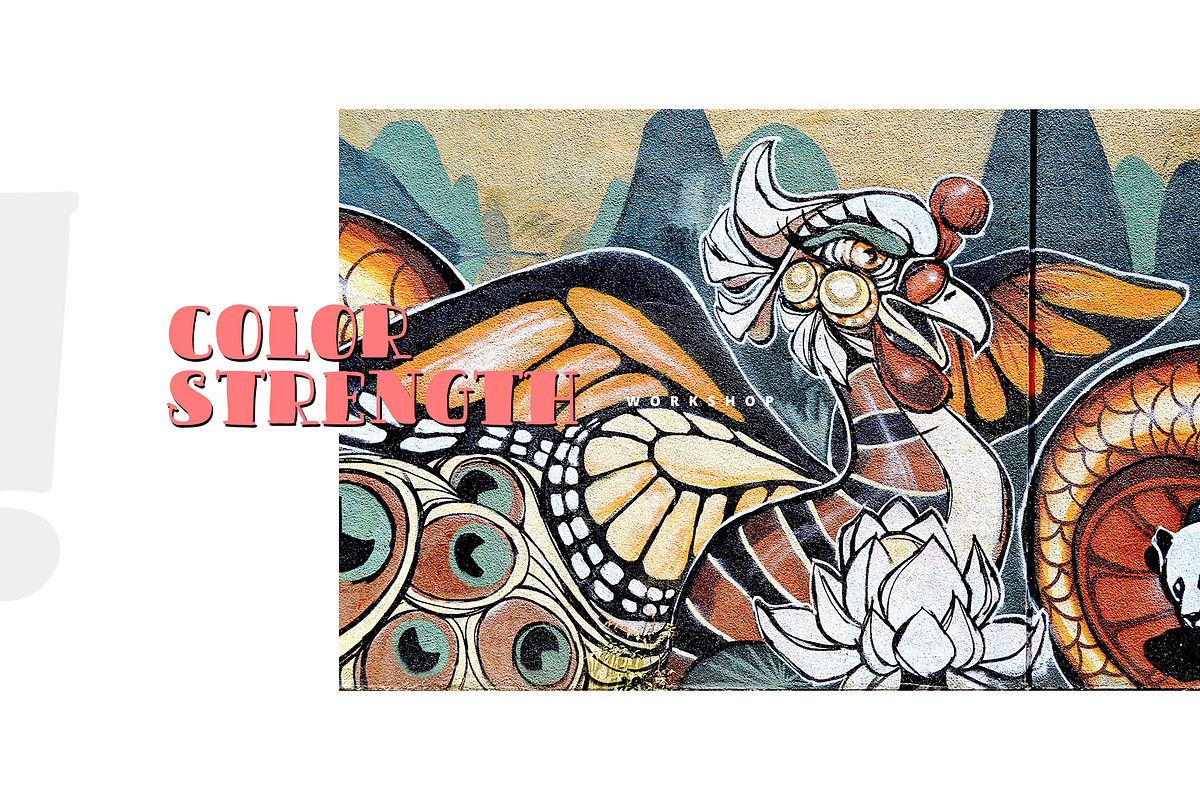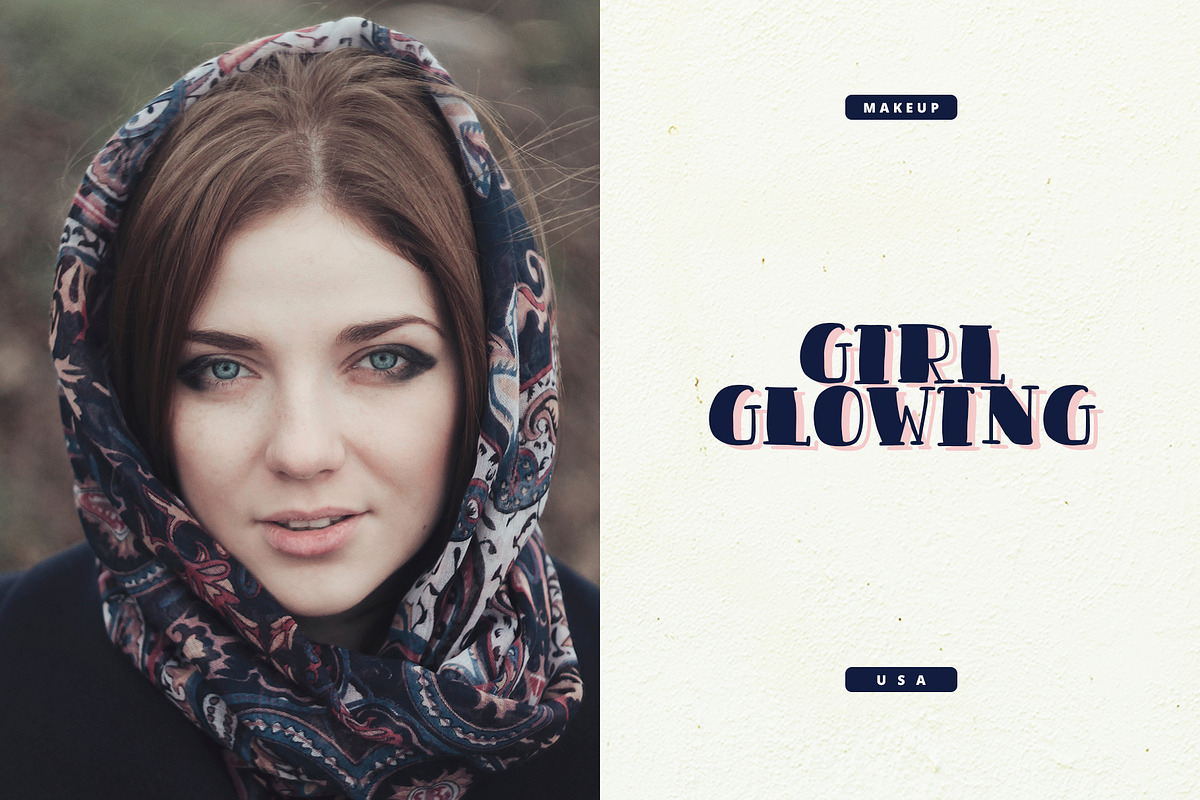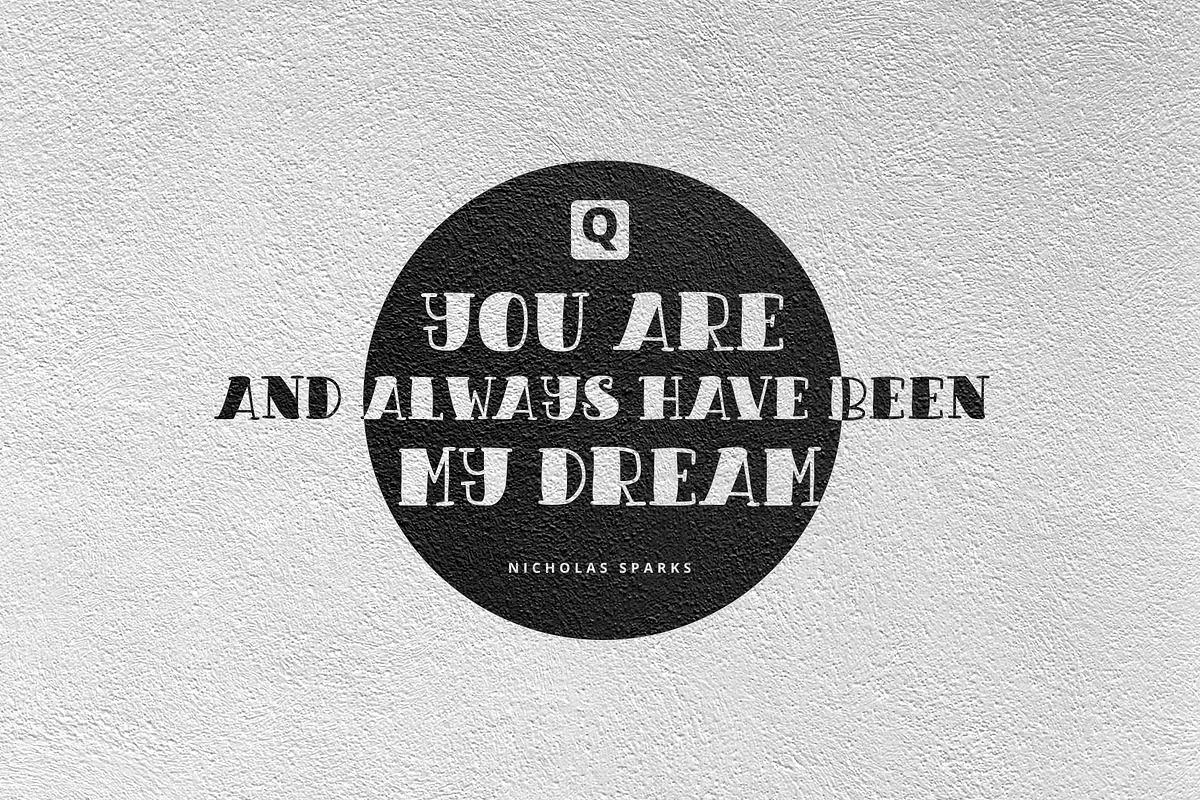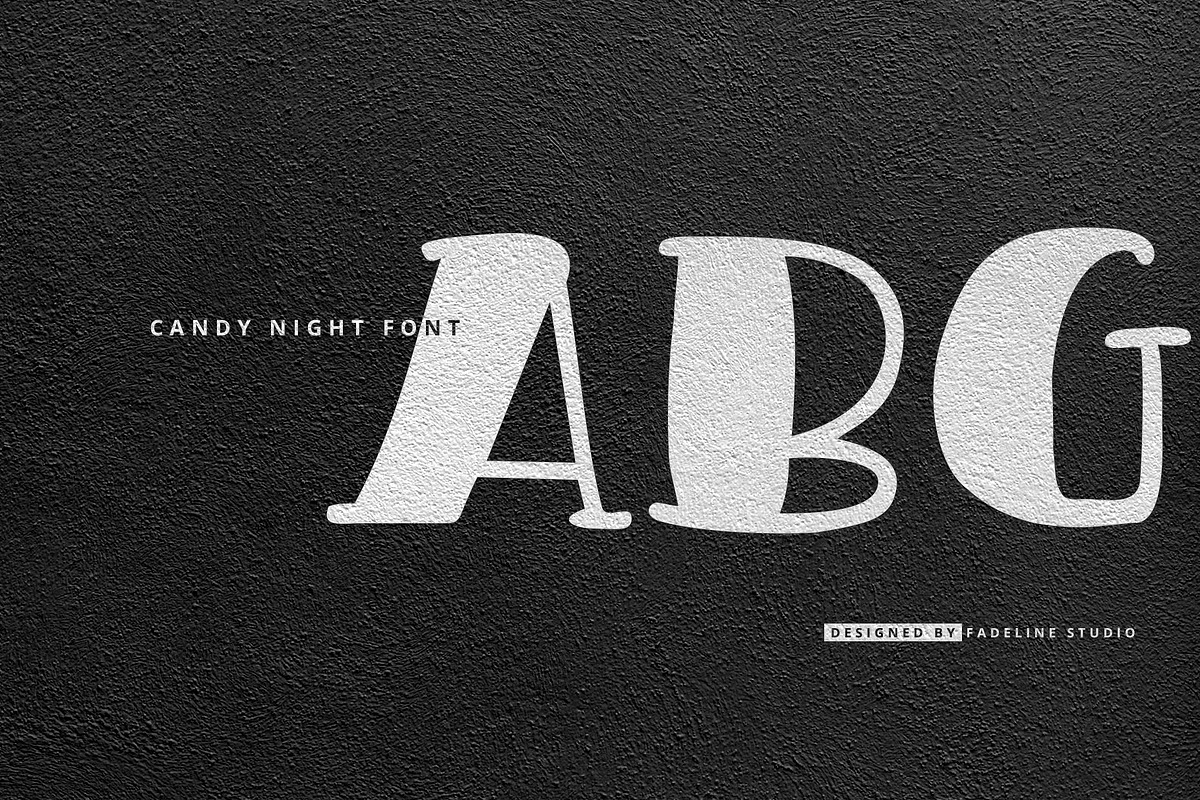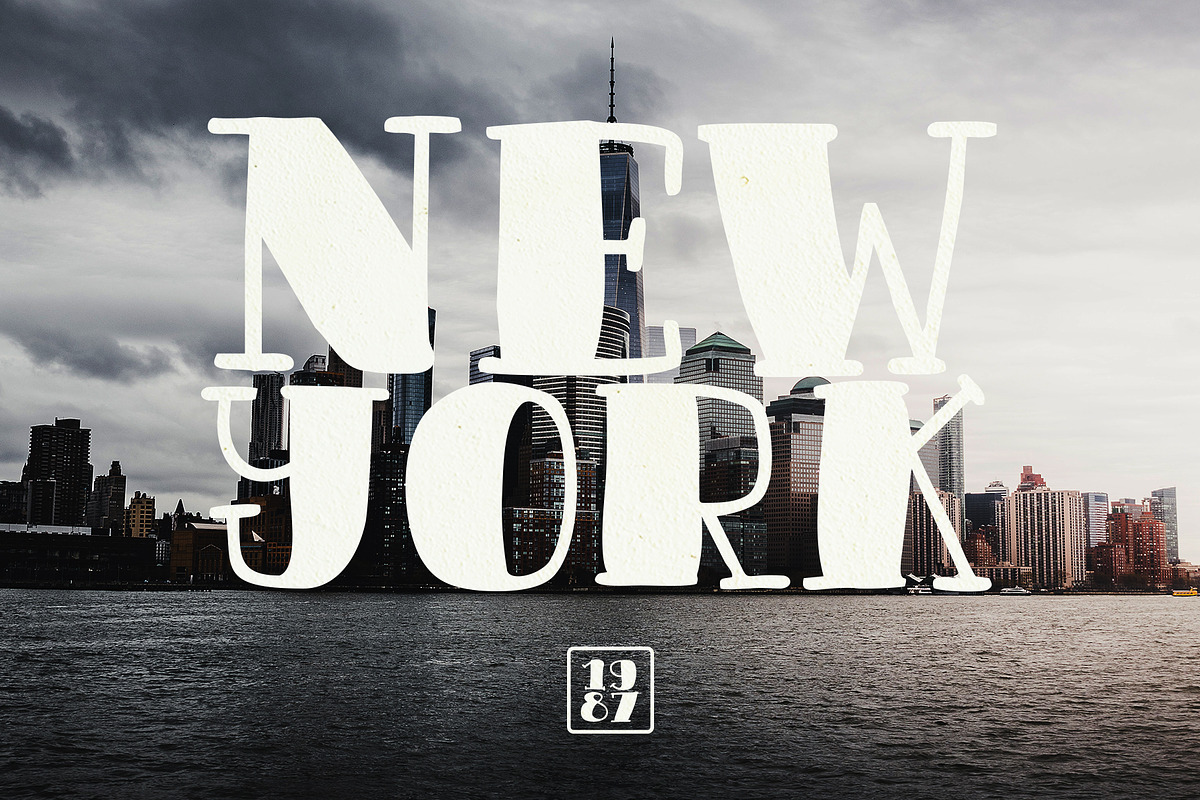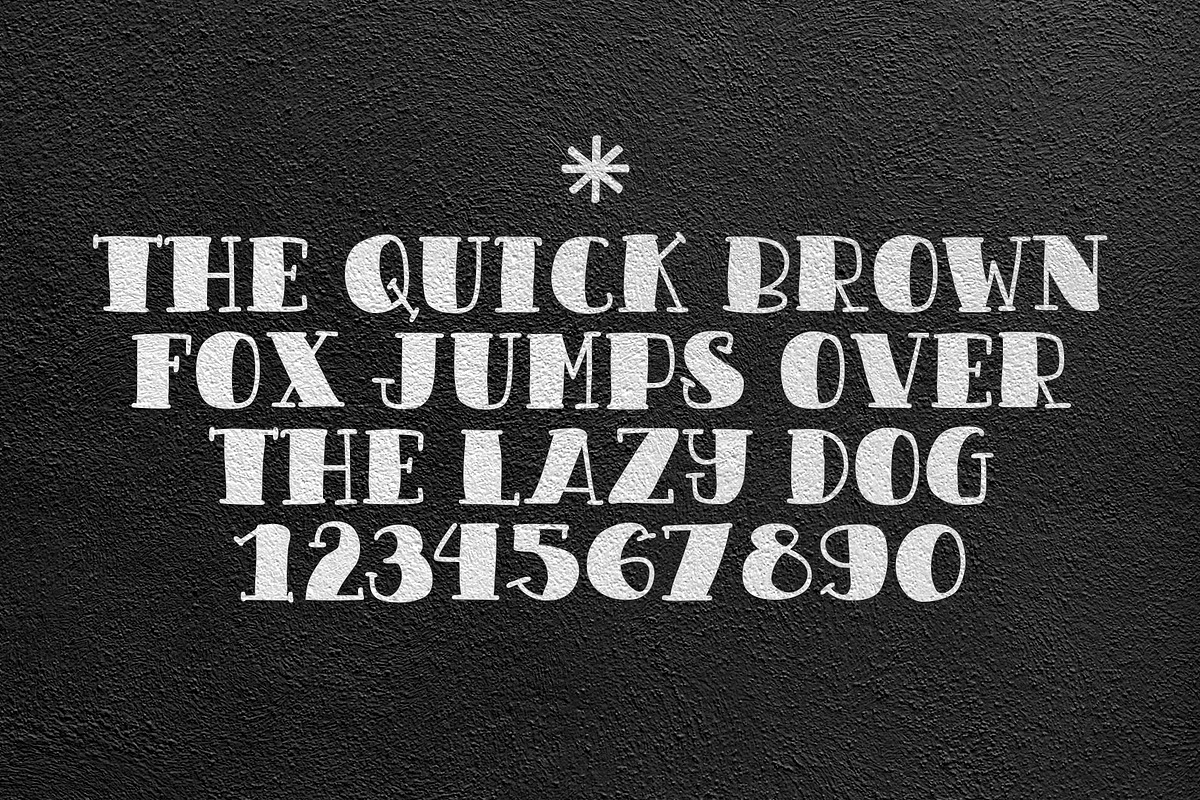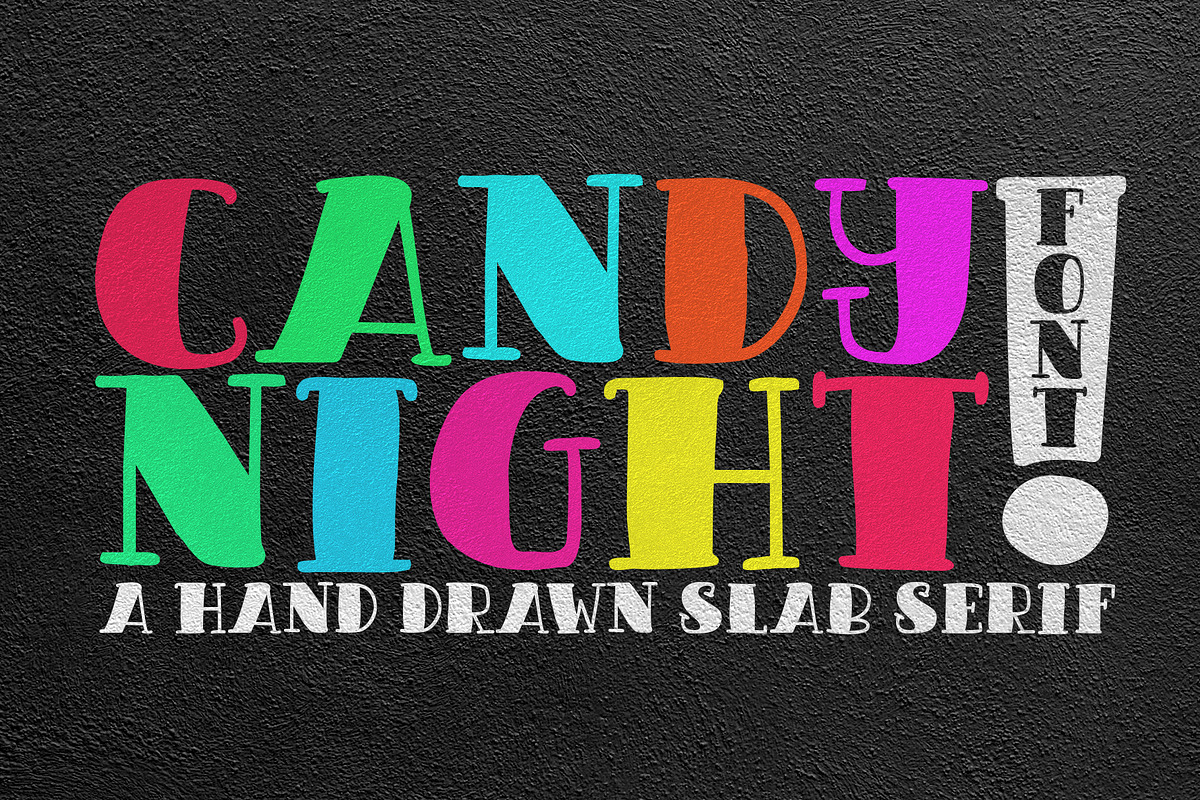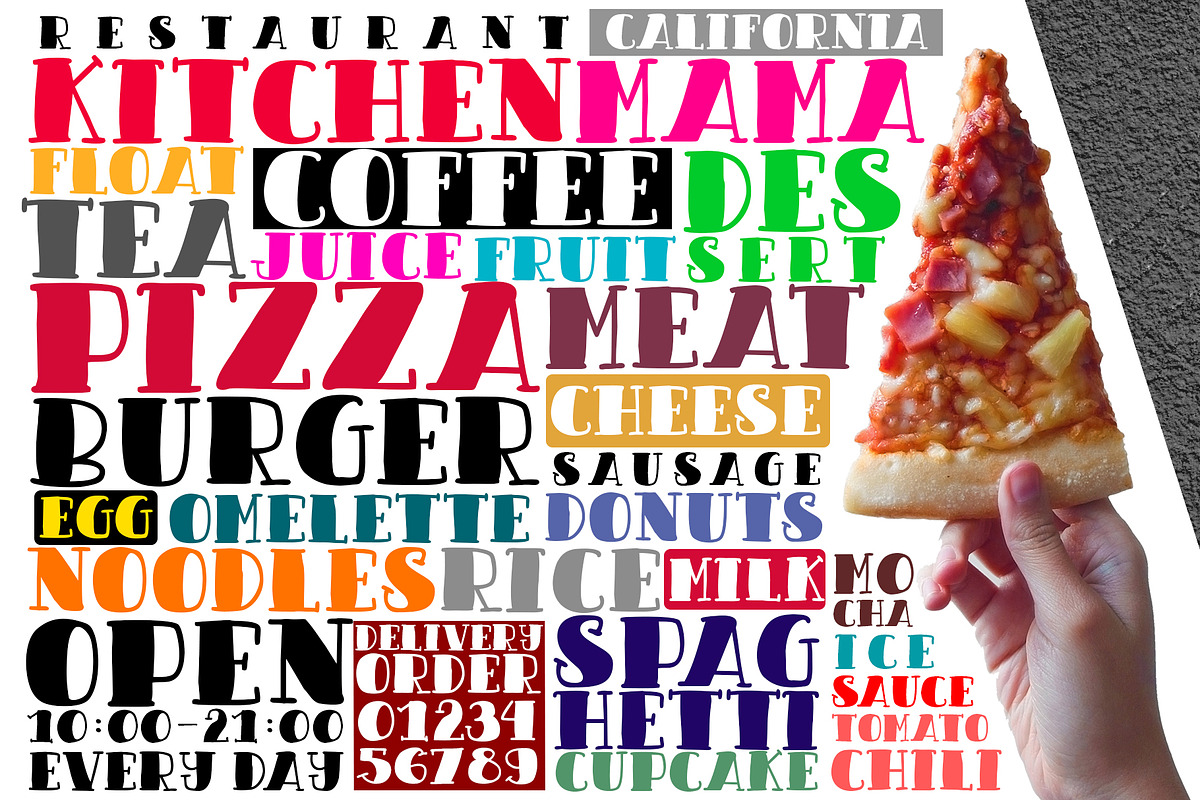
CANDY NIGHT FONT
Introducing CANDY NIGHT!
A Hand Drawn slab serif font! Made by hand aims to provide a natural, unique and modern style. This font is carefully made to maintain the balance of each letter. Very easy and convenient to use.
With a style like this, this font will be suitable in use for logo's, branding projects, homeware designs, product packaging, mugs, quotes, posters, shopping bags, logo's, t-shirts, book covers, name card, invitation cards, greeting cards, and all your other lovely projects.
Why CANDY NIGHT FONT is worth a look